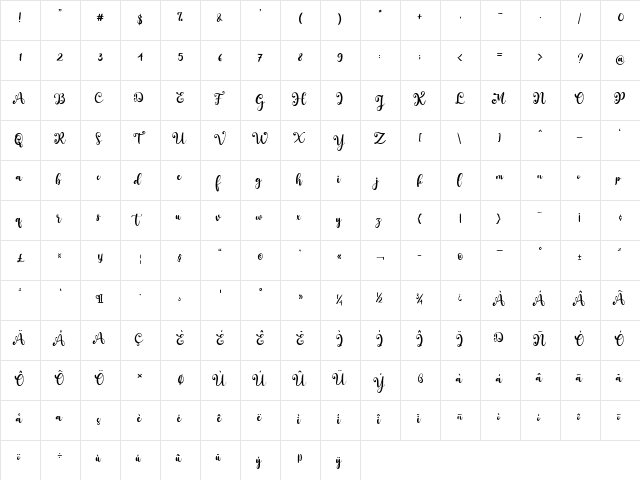
South Forest Regular
| Foundry | Kong Font |
| Designer | Typeface騋ong Font).2020. |
Design Context for South Forest Typeface
South Forest is a composed and adaptable typeface that performs quietly and consistently across a wide range of design contexts.